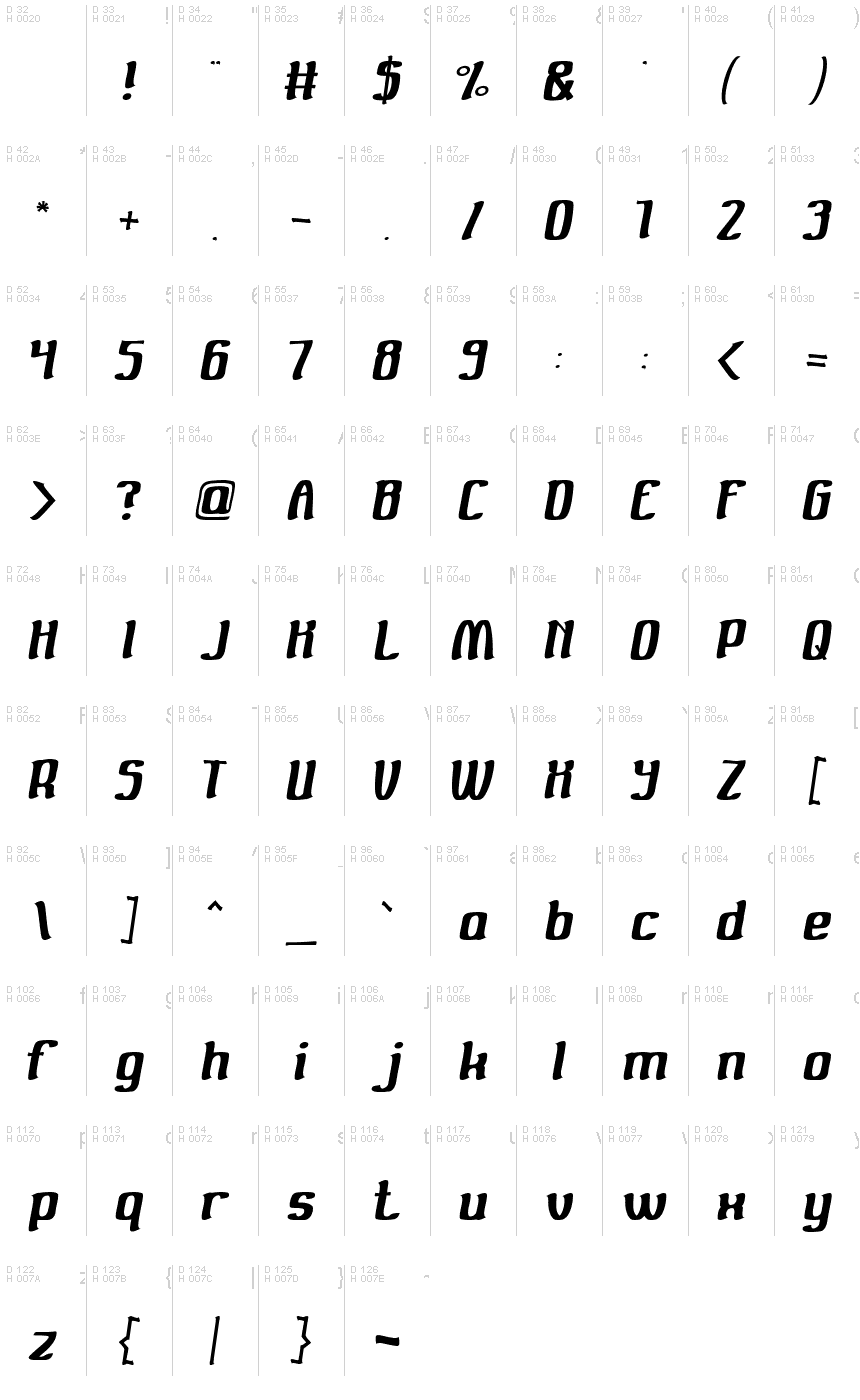
VALUABLE-Light
VALUABLE Light by Weknow is a modern and sleek display font that adds a touch of sophistication to any design project. With its semi-bold weight and clean lines, this font is perfect for branding, logos, packaging, and editorial designs. The versatility of VALUABLE Light makes it suitable for various projects such as fashion websites, luxury product packaging, interior design magazines, or high-end beauty brands. Its contemporary style and easy readability make VALUABLE Light a valuable addition to any designer's toolkit. Elevate your designs with this stunning typeface that is sure to leave a lasting impression on your audience!